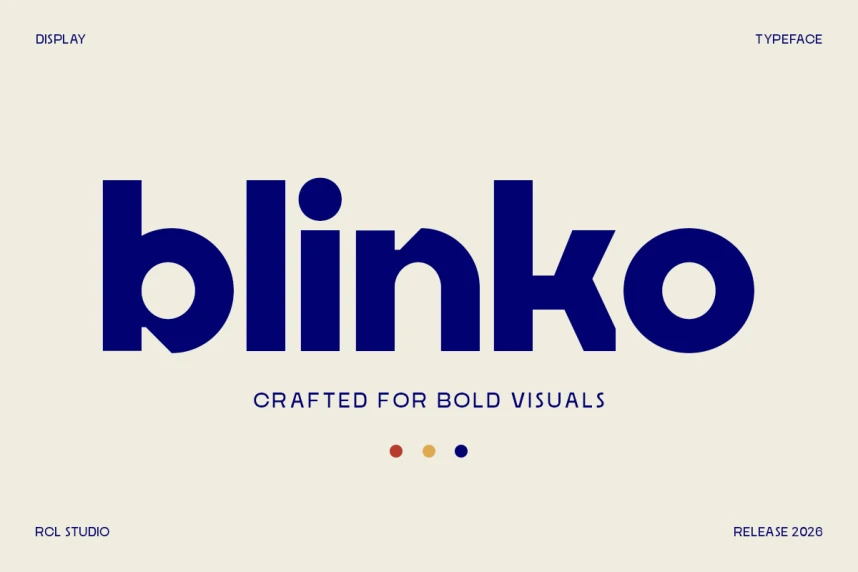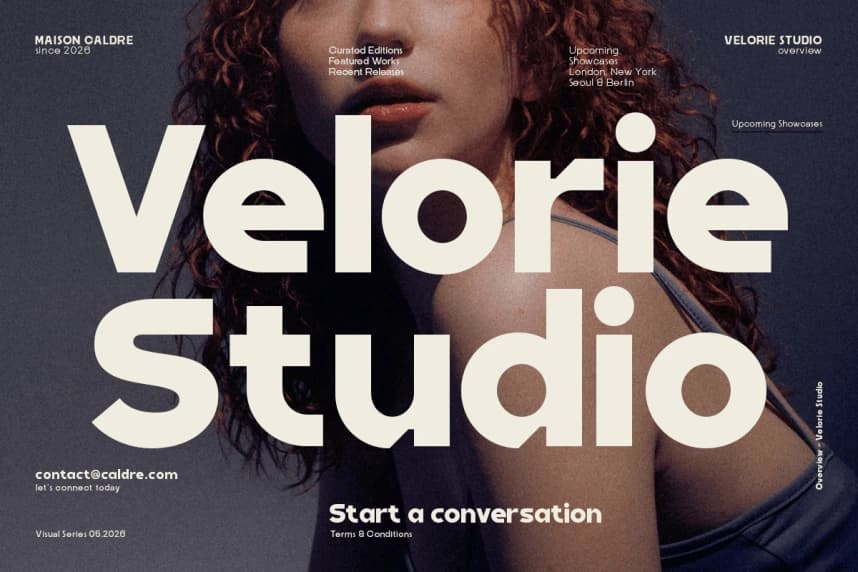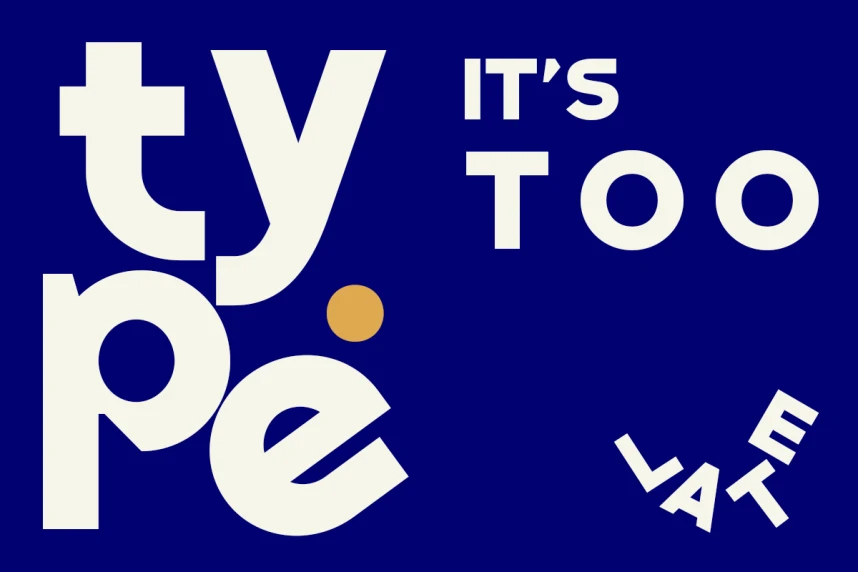
Blinko Font is a bold rounded display sans-serif designed to bring energy and personality into modern design. With its soft curves and chunky proportions, it creates a strong yet friendly presence that stands out instantly.